Improved Rendering for Three Webfont Families
Over the years, we’ve been refining our webfonts for better performance but today we’re happy to announce significant improvements to select fonts. Colfax Web, Klavika Web and Klavika Condensed Web are now manually hinted — for ClearType and greyscale — providing a high degree of readability across browsers. In addition to manual hinting, some character shapes were adjusted to render nicely down to 14 pixels.
So what does this look like? Although auto-hinting can do a decent job, it often fails to describe the nuances of certain character shapes across a range of sizes leaving a typeface perfectly readable at some sizes while leaving others muddy. The examples below show where auto-hinting failed the hardest (on the left) with manual hinting to the rescue (on the right).
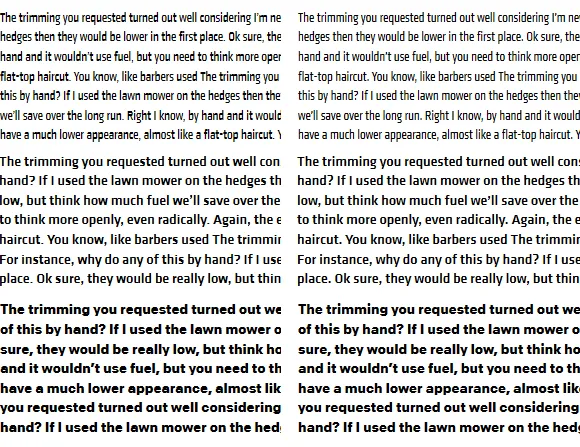
Before hinting, on the left; after, right. From top to bottom: Klavika Web Condensed Regular, Klavika Web Medium and Colfax Web Bold. All samples are set at 14px and rendered by Firefox 28 on Windows 8.
The web versions of Colfax, Klavika and Klavika Condensed were the first in line for the updates, but Elena Web, Stratum 1 & 2 Web and Bryant 2 Web are on deck.